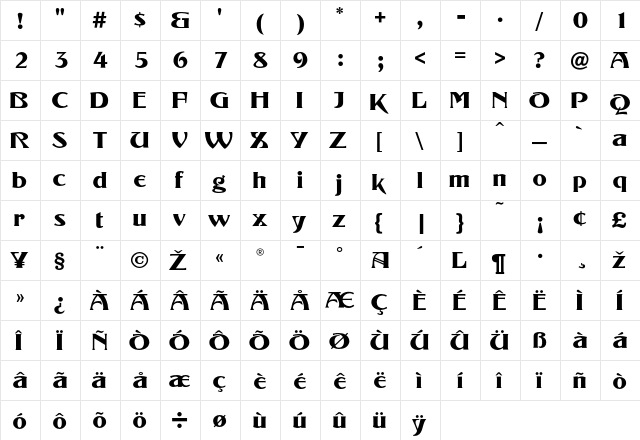
Murillo Regular
Design Context for Murillo Typeface
Murillo offers clean, dependable letterforms without strong stylistic allegiance, making it a practical choice for designers who need flexibility.
Pro Tip: Pair Murillo with a font of contrasting weight or personality to build a more expressive typographic hierarchy.